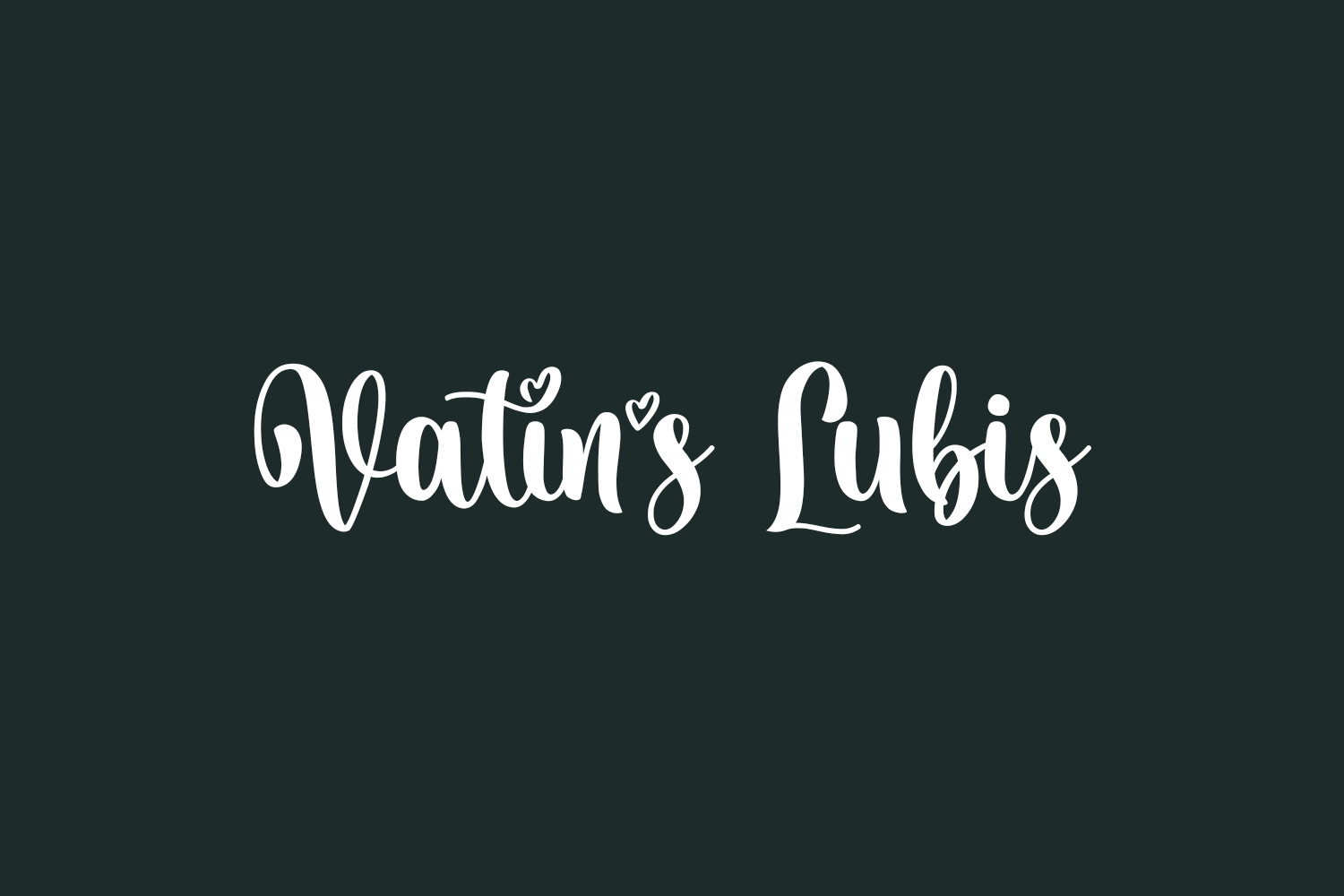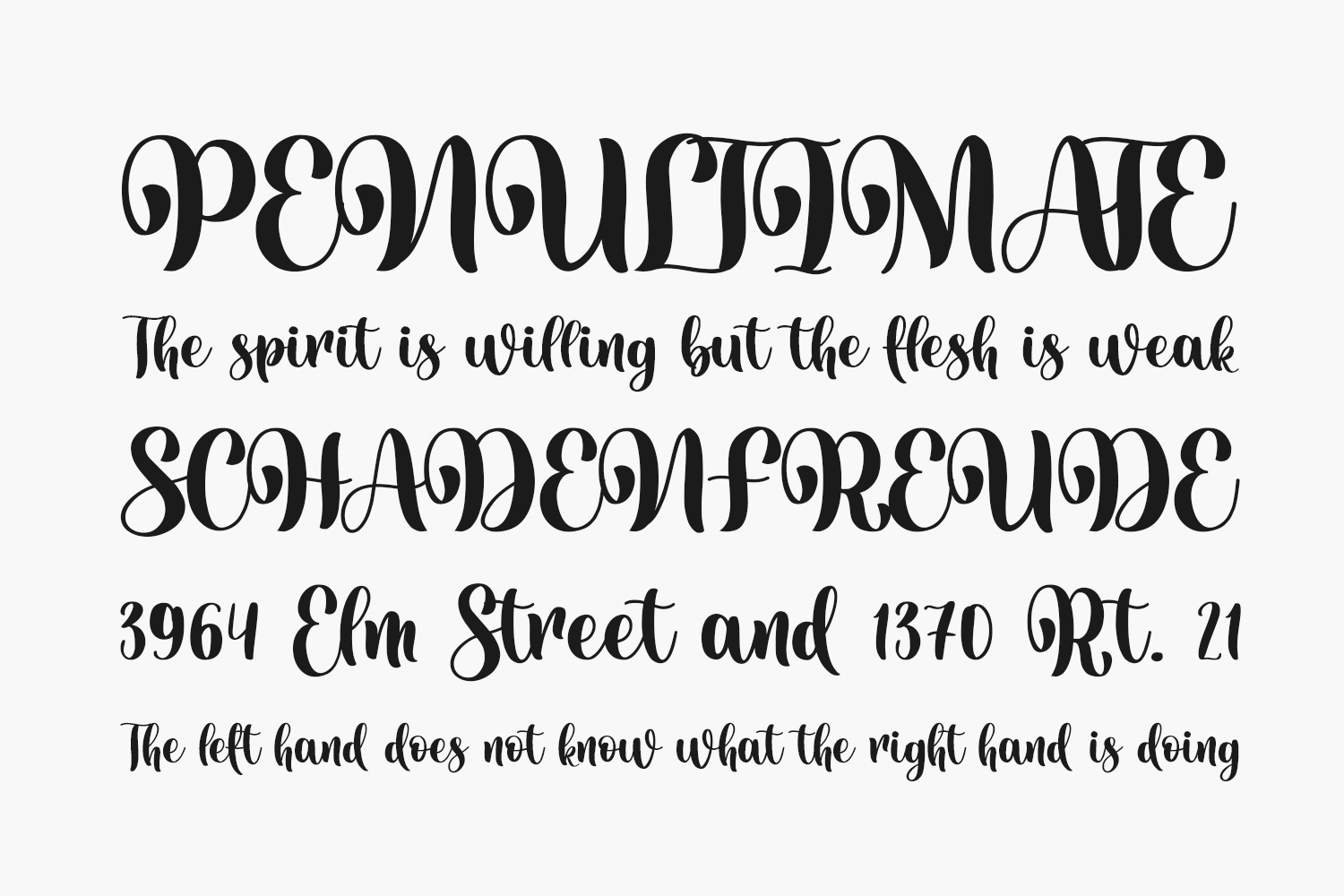
Vatins Lubis Free Font is a romantic and warm hearted script font. It looks beautiful on a variety of designs requiring a personalized style, such as wedding invitations, thank you cards, weddings, greeting cards, logos, and so on. Vatins Lubis Free Font was designed by HansCo and is free for personal use only. Please purchase the full version for commercial use.